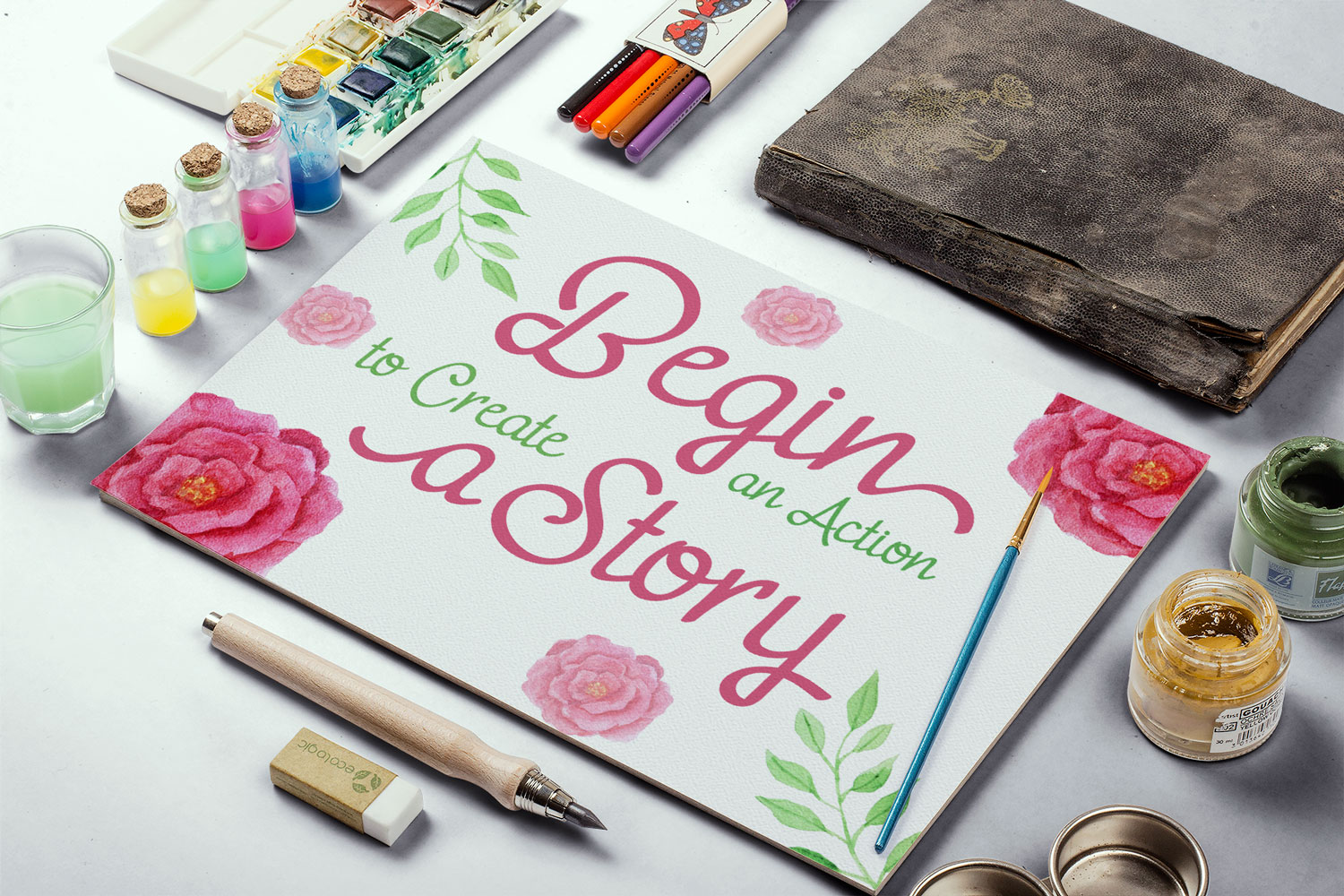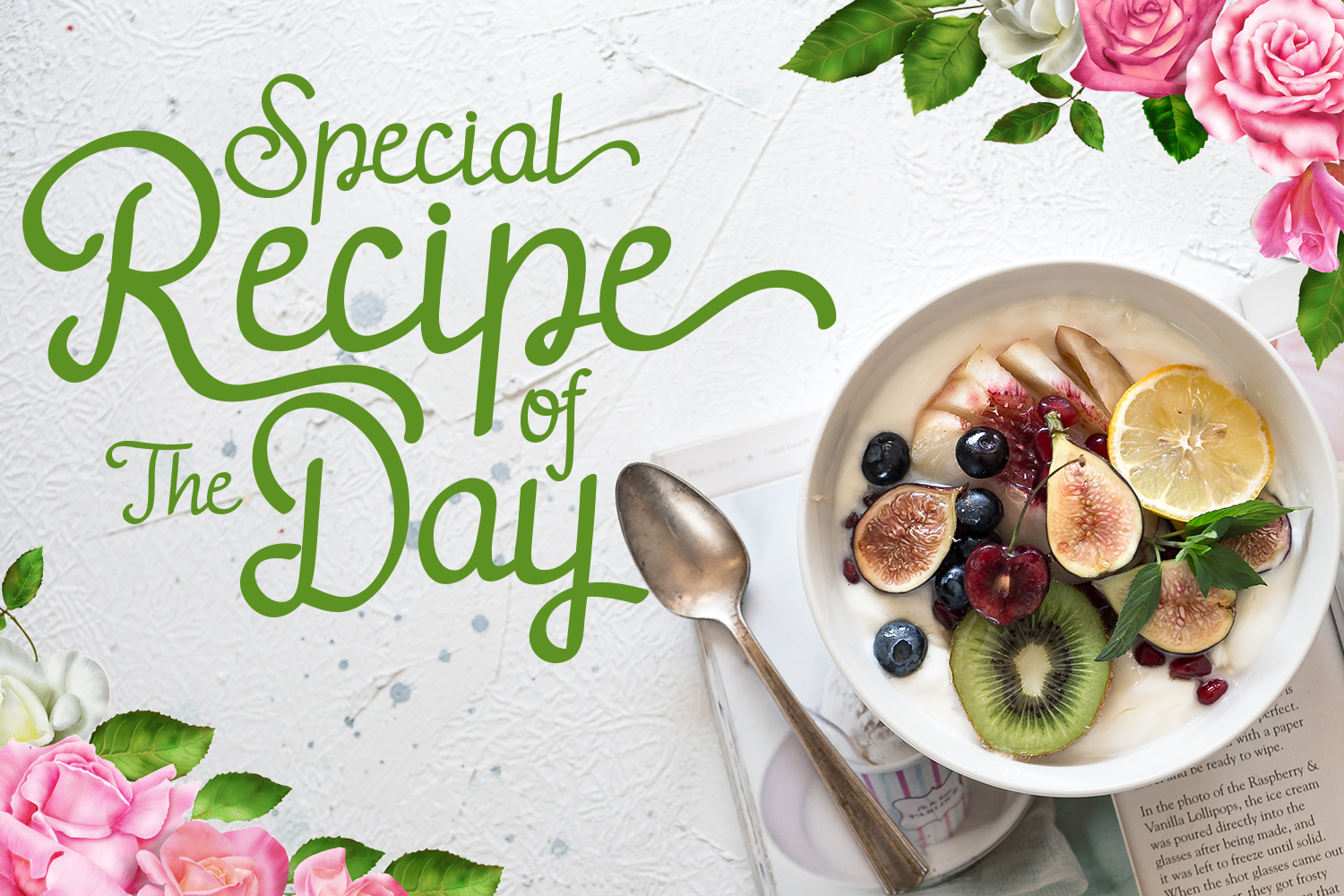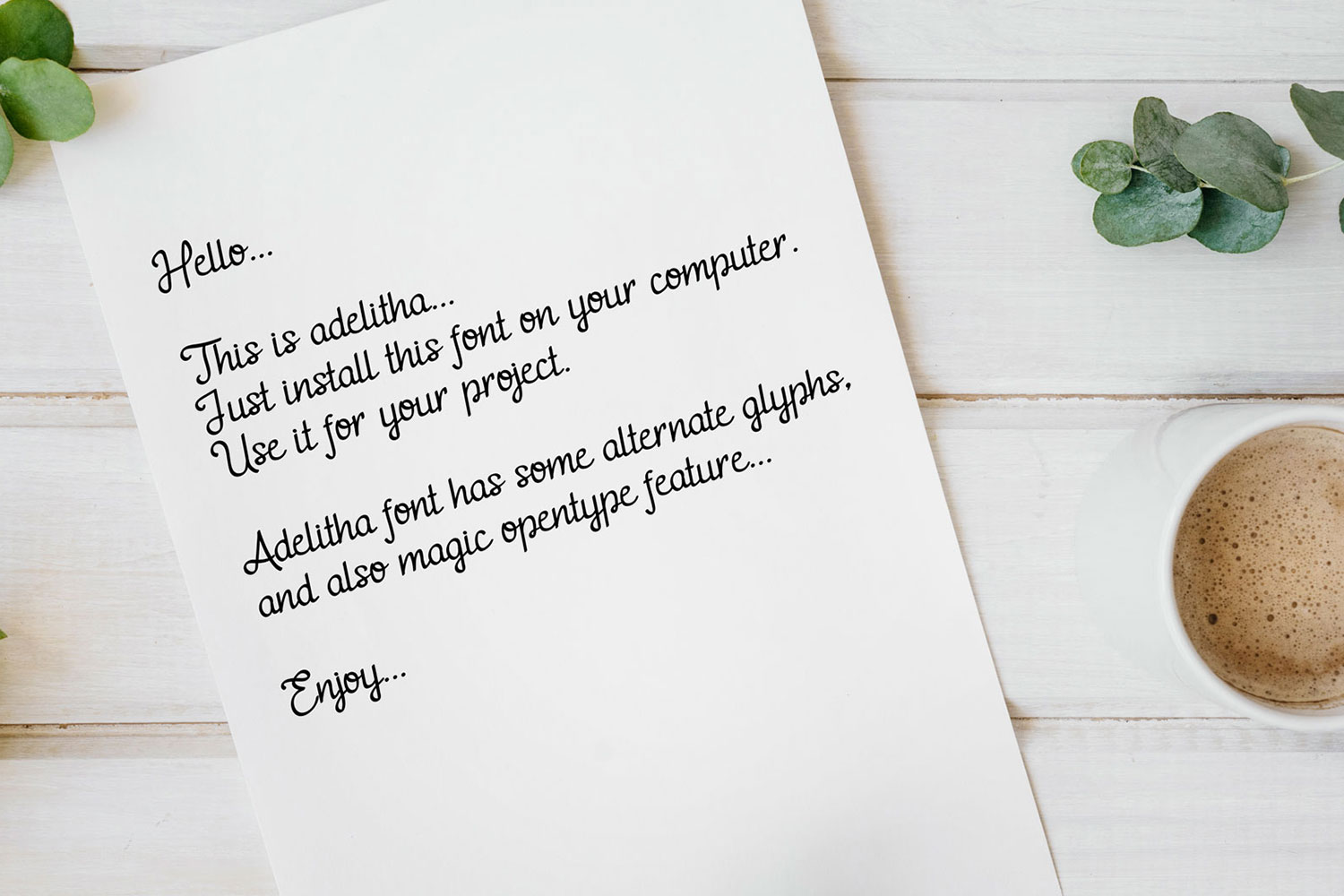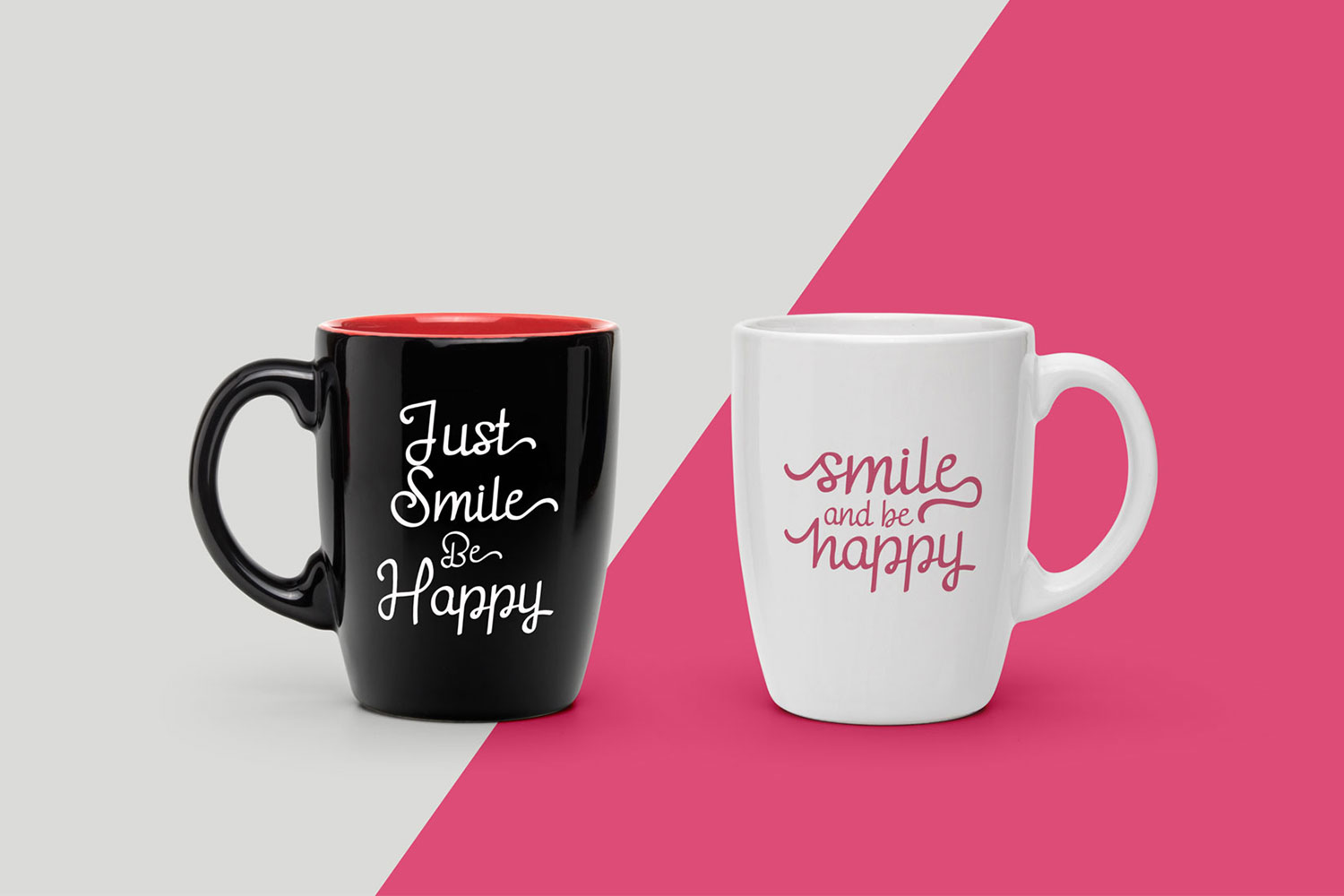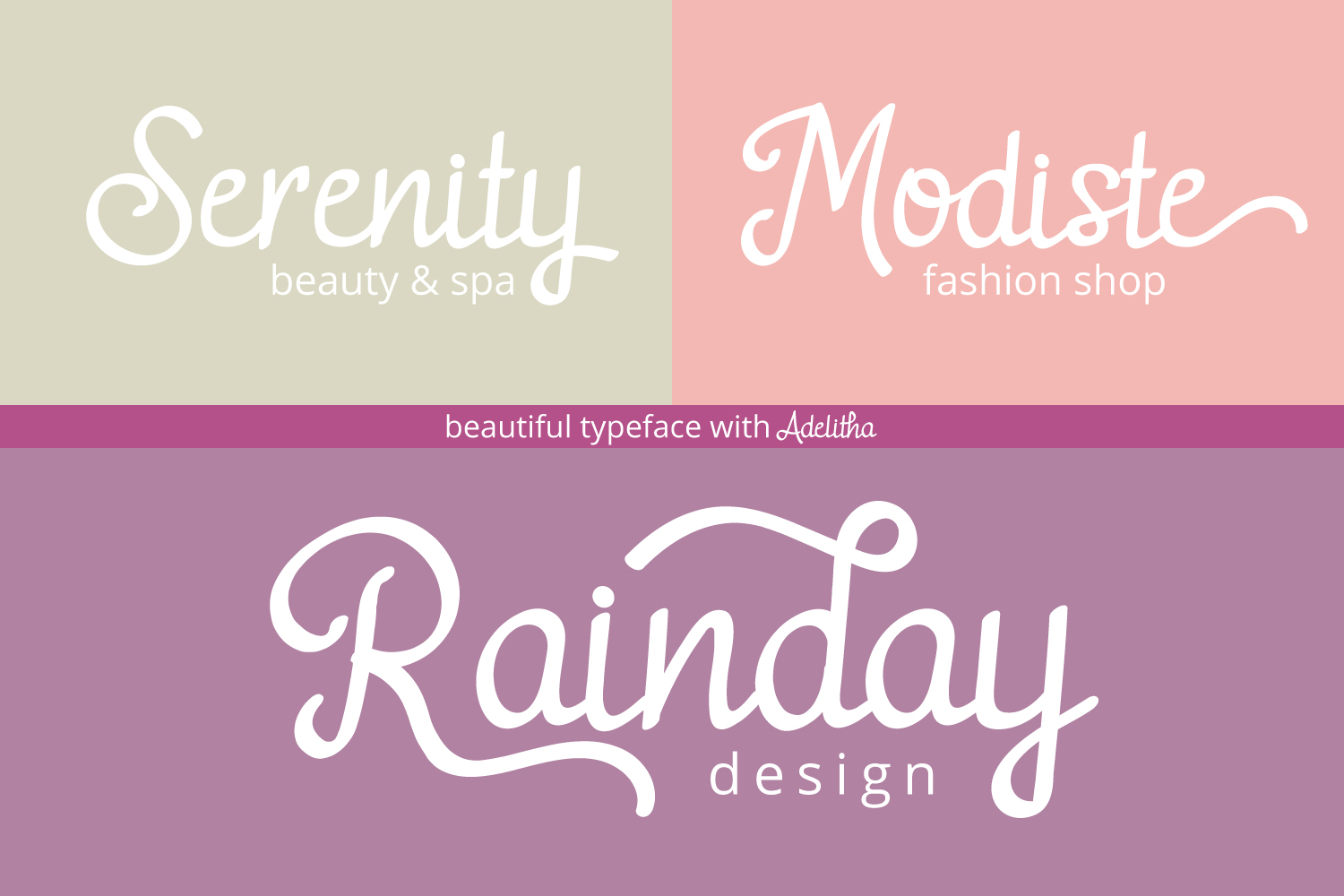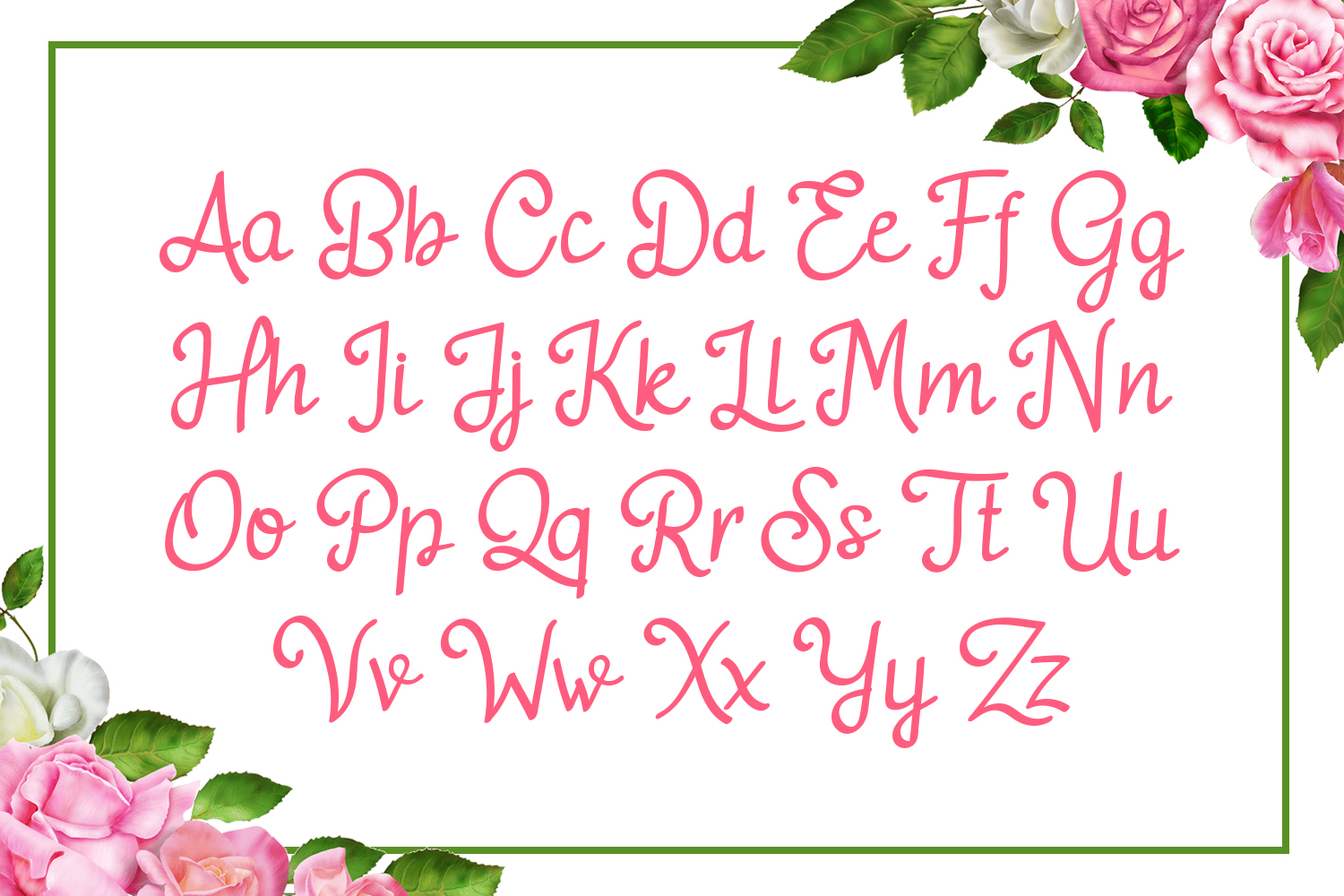
The Designer’s Delight: Uncovering the Charm of Adelitha Font
I’ll never forget the time I was working on a branding project for a luxury wedding planner. My client wanted a font that exuded elegance, sophistication, and romance. I scoured the internet, tried out countless fonts, but nothing seemed quite right. That was until I stumbled upon Adelitha Font. ✨ It was love at first sight! The beautifully structured and crafted script font won my heart, and my client’s. In this article, I’ll share with you why Adelitha Font is a game-changer for designers, crafters, and creative hobbyists.
A Honest Review: The Good and the Great
So, what makes Adelitha Font so special? Let’s dive into the good stuff! 😊
- ✅ Legibility without compromise: Adelitha Font is wonderfully well-weighted, making it easy to read without sacrificing style.
- ✨ Beautifully crafted: The font’s intricate details and flowing lines make it perfect for display and headline designscapes.
- ✅ Versatile: Adelitha Font can be used for a variety of projects, from wedding invitations to luxury branding.
Now, no font is perfect, and Adelitha Font has a few minor quirks:
- ⚠️ Limited use in body text: While Adelitha Font is legible, it’s not the best choice for long blocks of body text. Stick to headlines and short paragraphs for maximum impact.
- 🤔 Some glyphs may not work well in all contexts: As with any script font, some glyphs may not work well in all contexts. Be sure to test the font thoroughly before finalizing your design.
Adelitha Font was designed with the intention of creating a beautiful, elegant script font that would evoke the feeling of luxury and sophistication. The designer drew inspiration from classic calligraphy and modern typography to create a unique and versatile font.
| Font Name | Adelitha Font |
| Author | josgandos |
| What is Adelitha Font best used for? | Adelitha Font is best used for display and headline designscapes, such as luxury branding, wedding invitations, and social media graphics. |
| Is Adelitha Font suitable for body text? | While Adelitha Font is legible, it’s not the best choice for long blocks of body text. Stick to headlines and short paragraphs for maximum impact. |